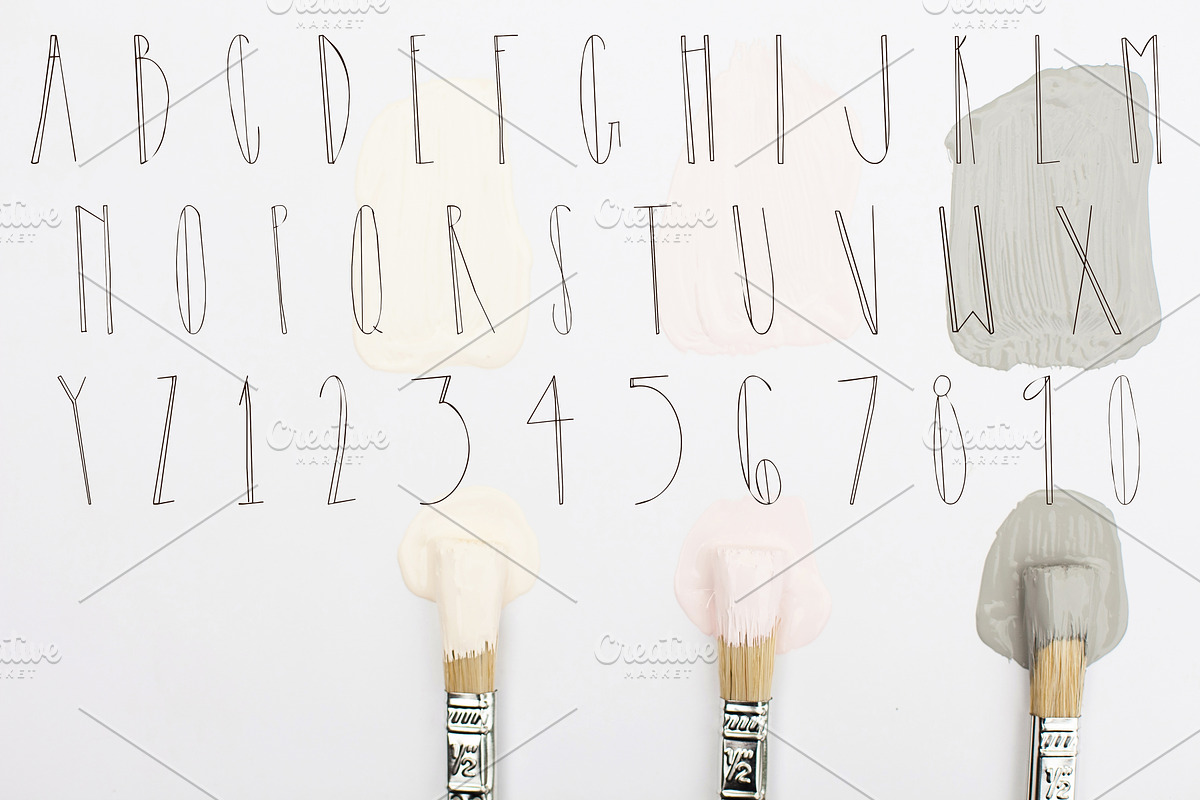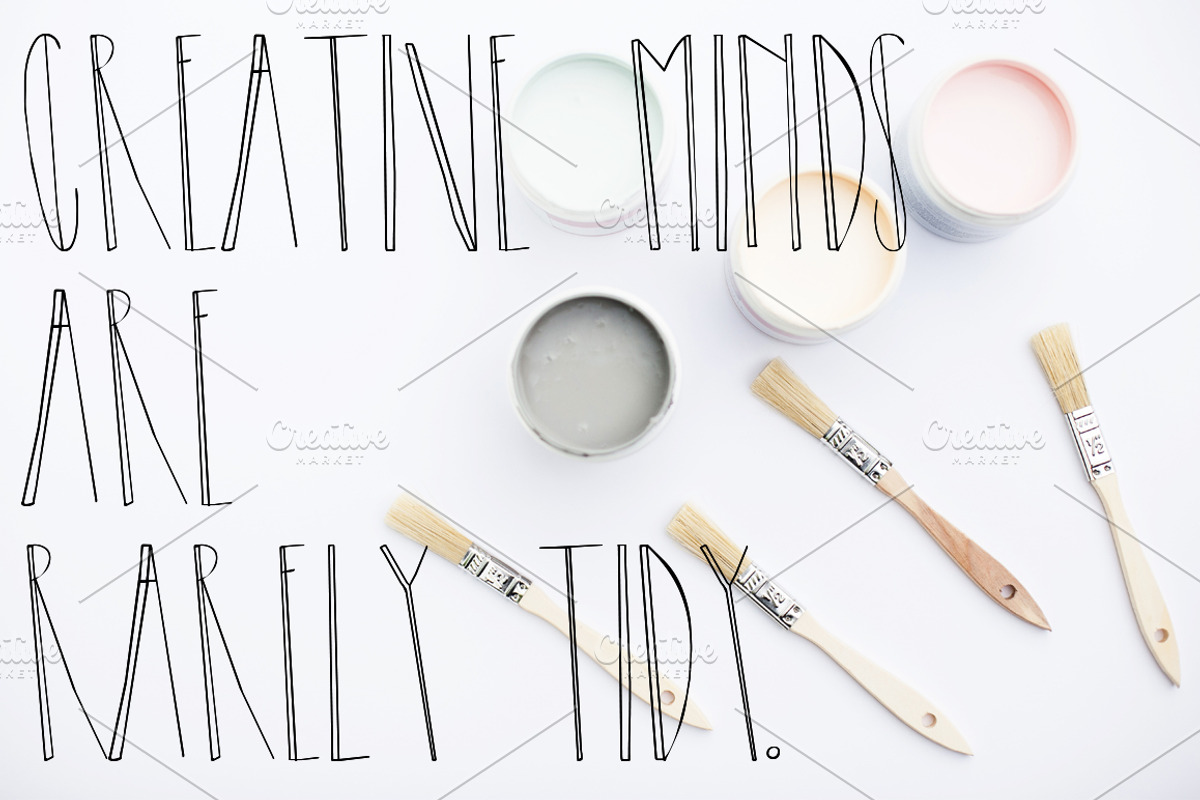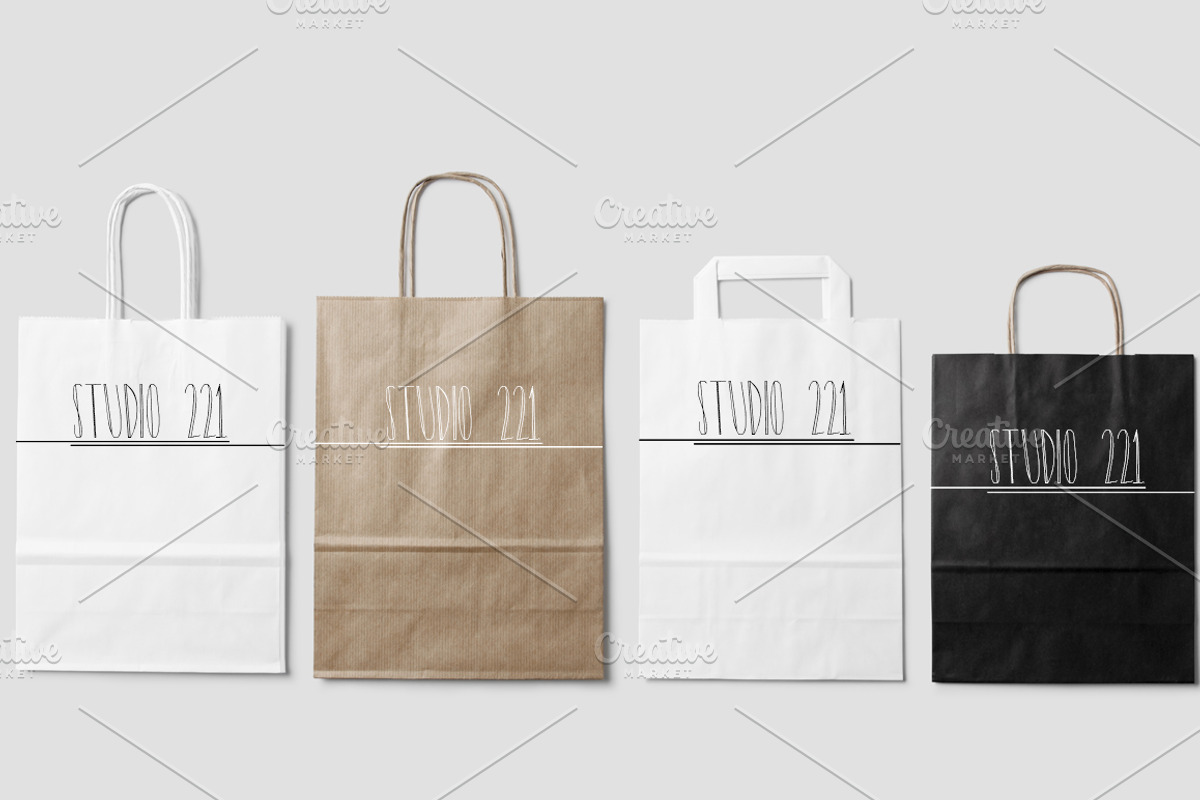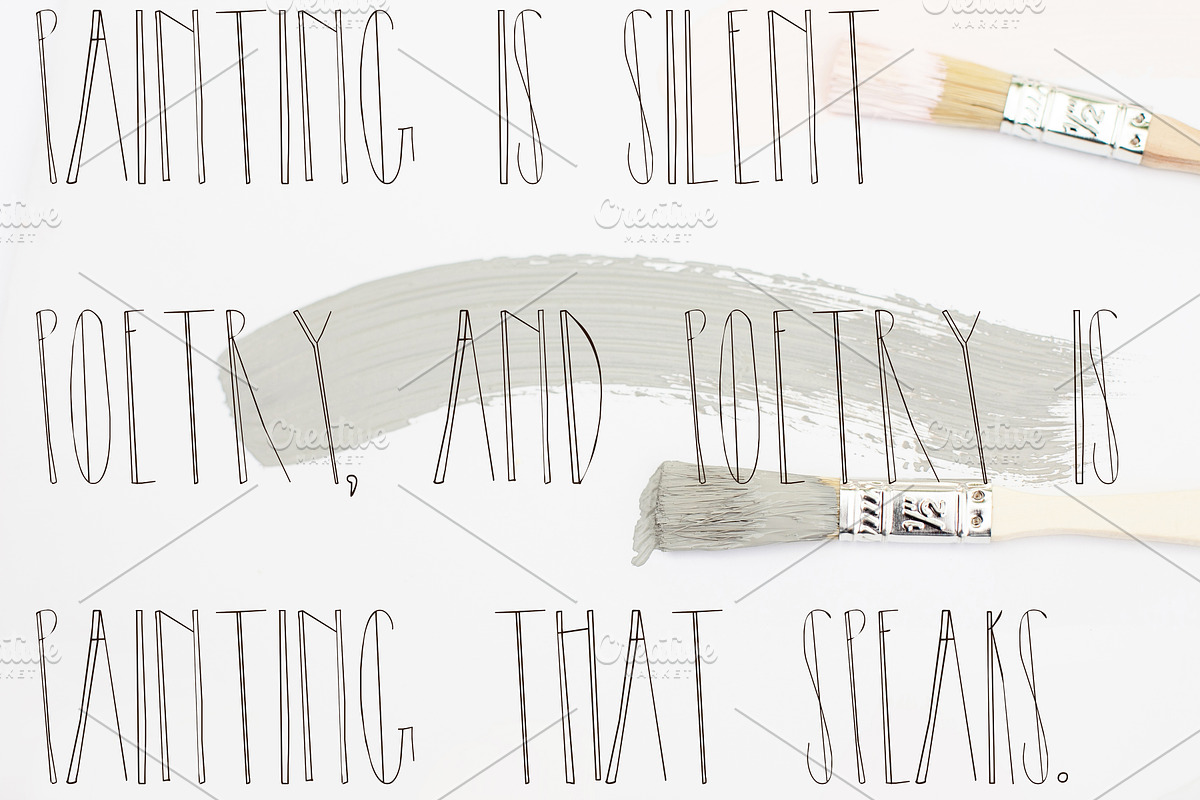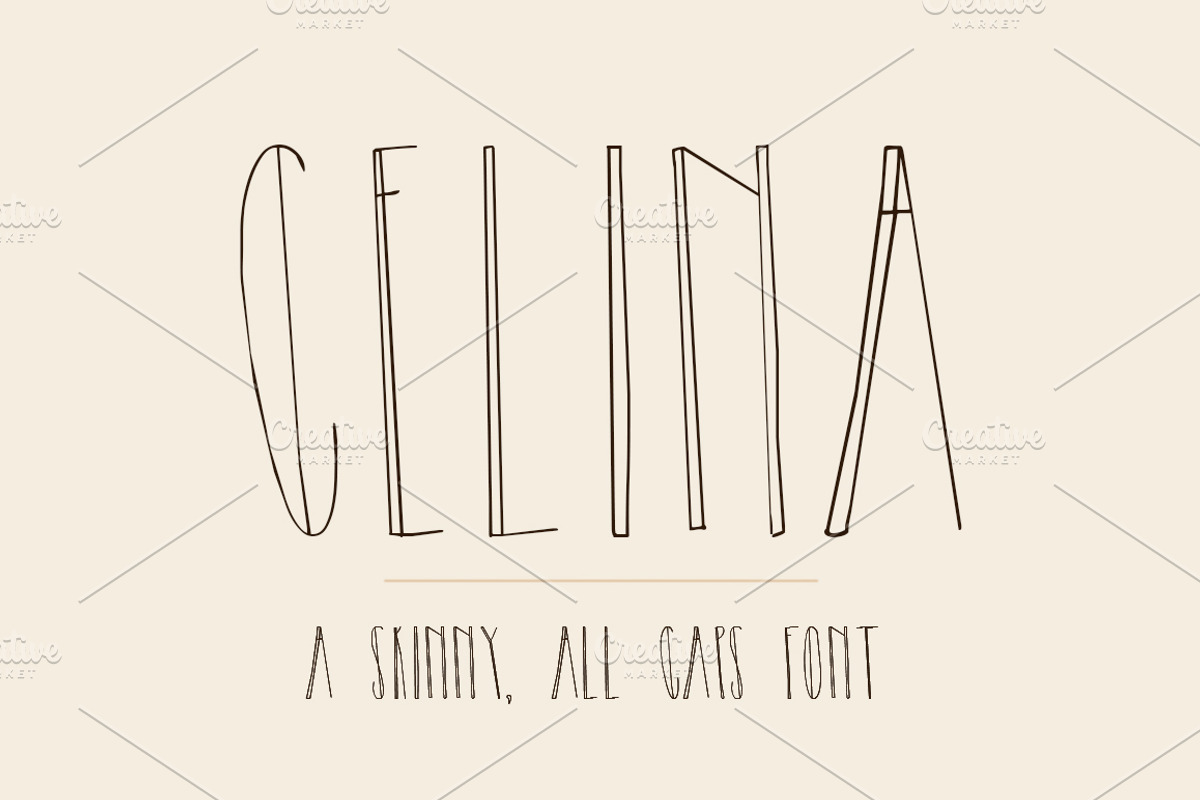
CELINA Skinny Hand Lettered Font
Celina is a simple, yet unique, uppercase font that will spice up any project! Celina is adorable and sweet but has some personality of her own. A hand lettered upper case font, this font is a skinny sans serif beauty. Full alphabet, symbols, and numbers.